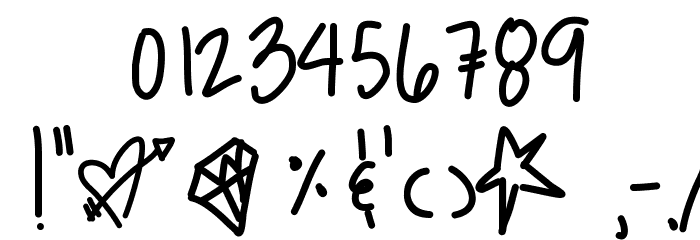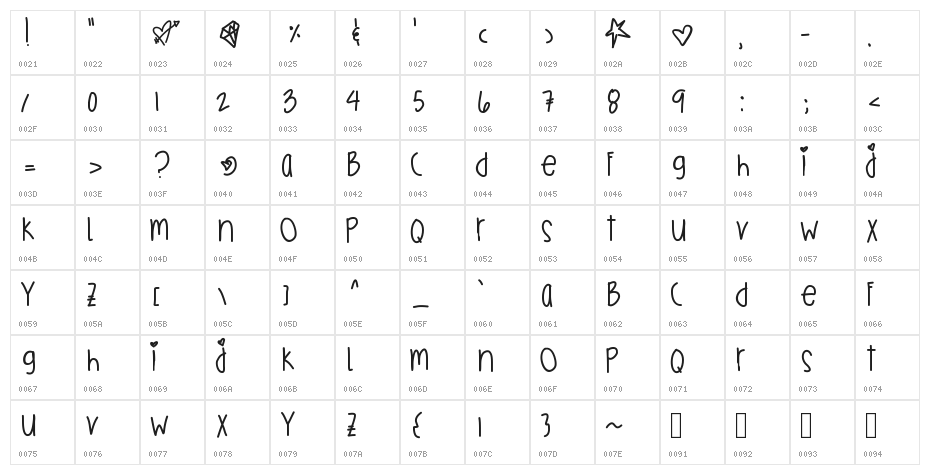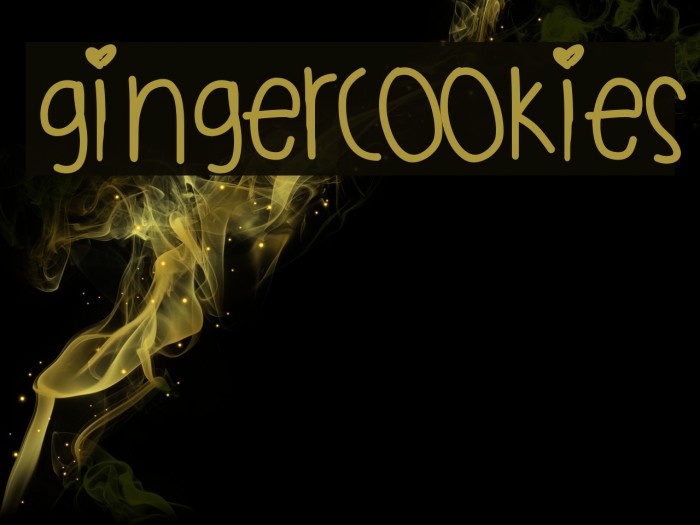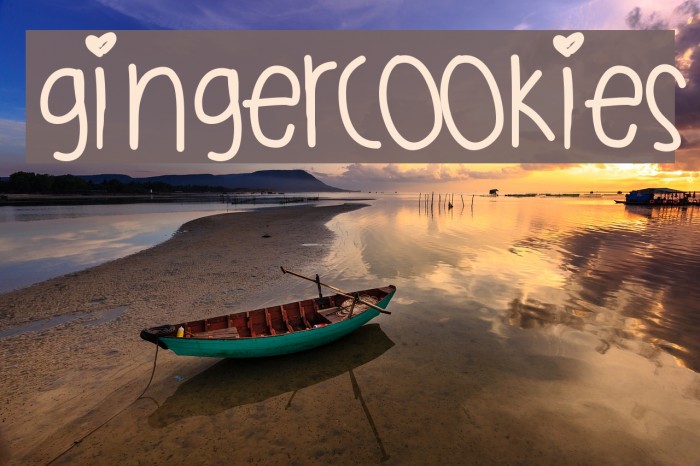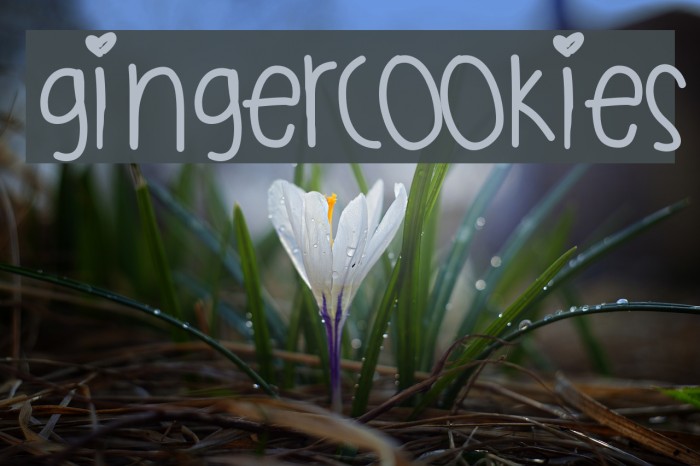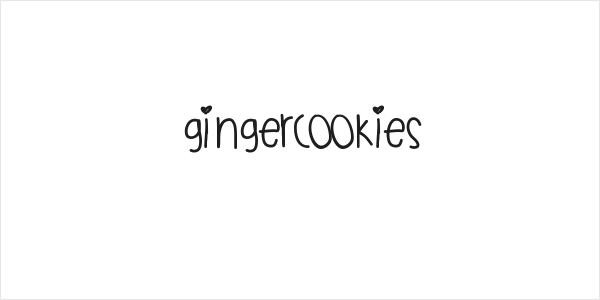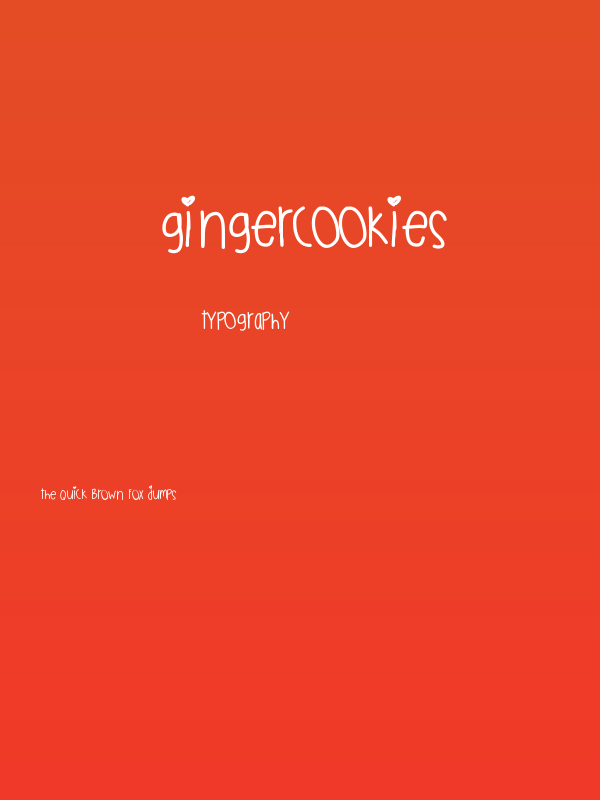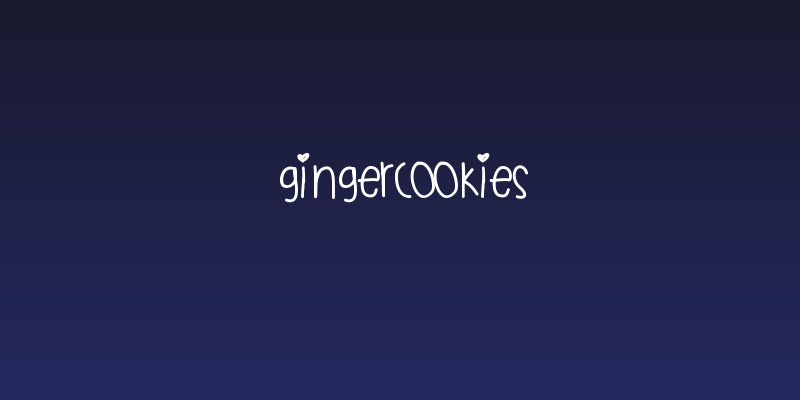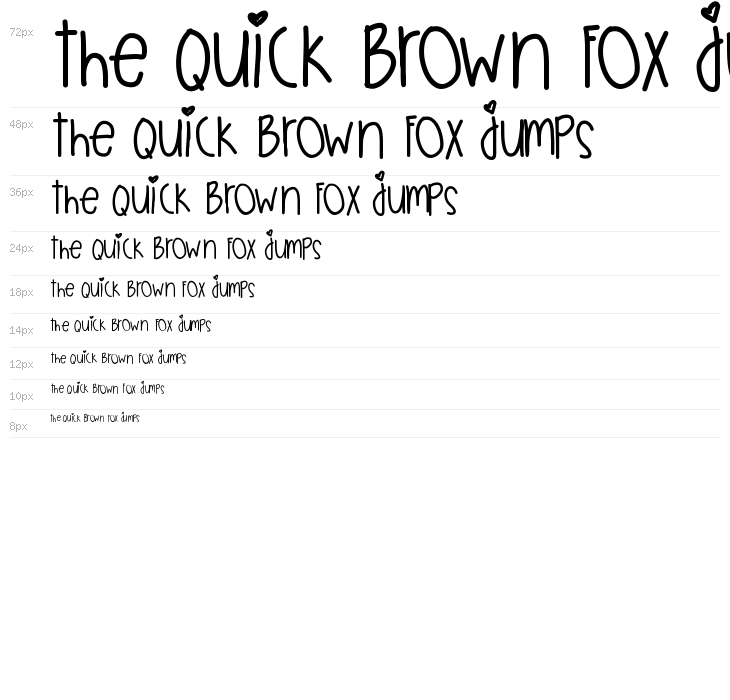
GingerCookies Font
GingerCookies Description
This playful and whimsical font features a handwritten style with a casual and friendly appearance. The characters are slightly irregular, adding to its charm and personality. The uppercase and lowercase letters are consistent in style, with rounded edges and a smooth flow. The numbers and special characters maintain the same playful aesthetic, making it suitable for creative and informal projects. The font's unique style is enhanced by the inclusion of decorative elements like hearts, which add a touch of fun and creativity.
| Proposed Projects | Ideal for children's books, greeting cards, playful branding, and creative social media graphics. |